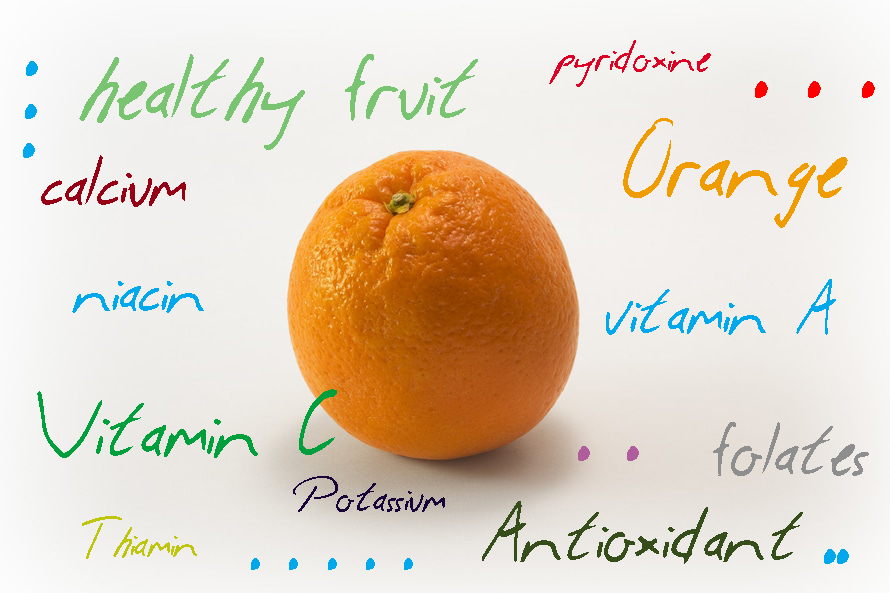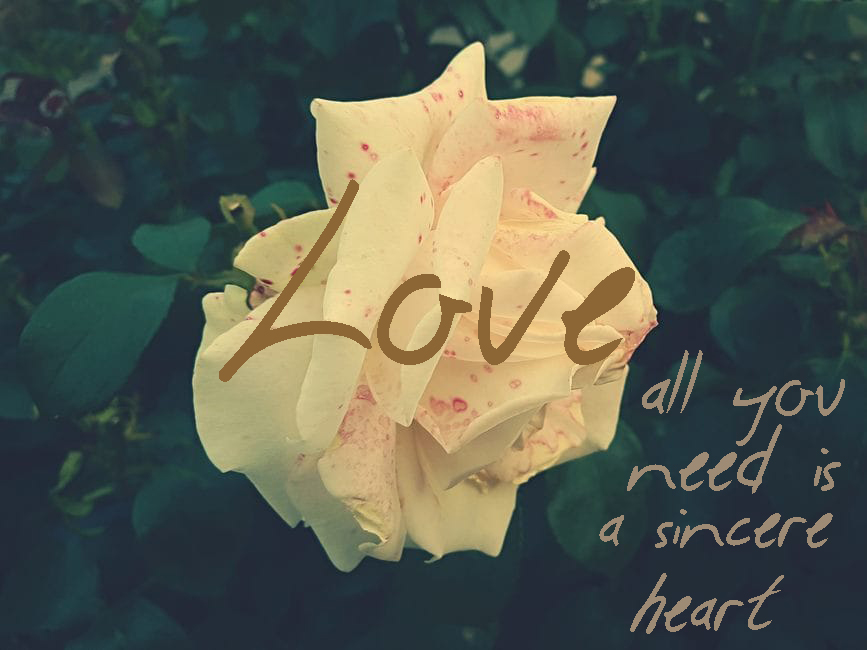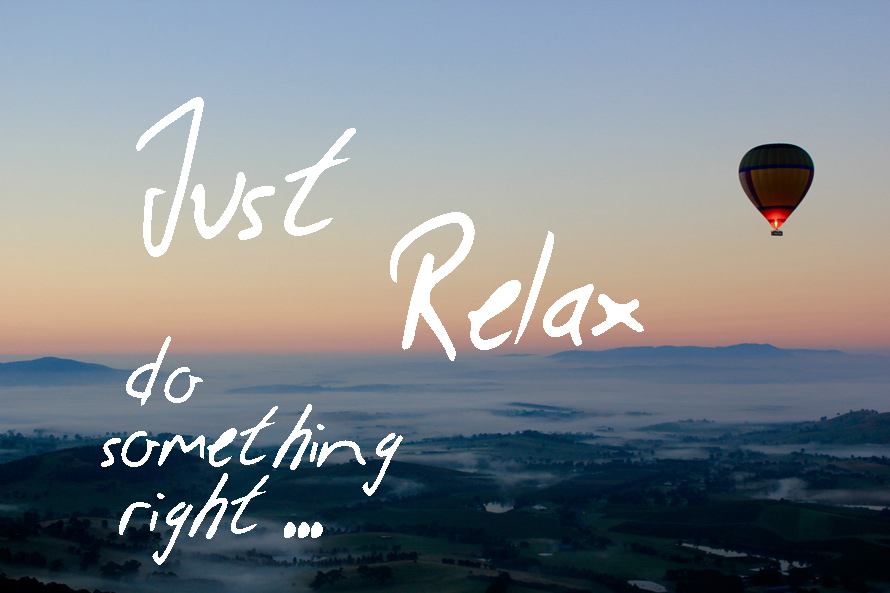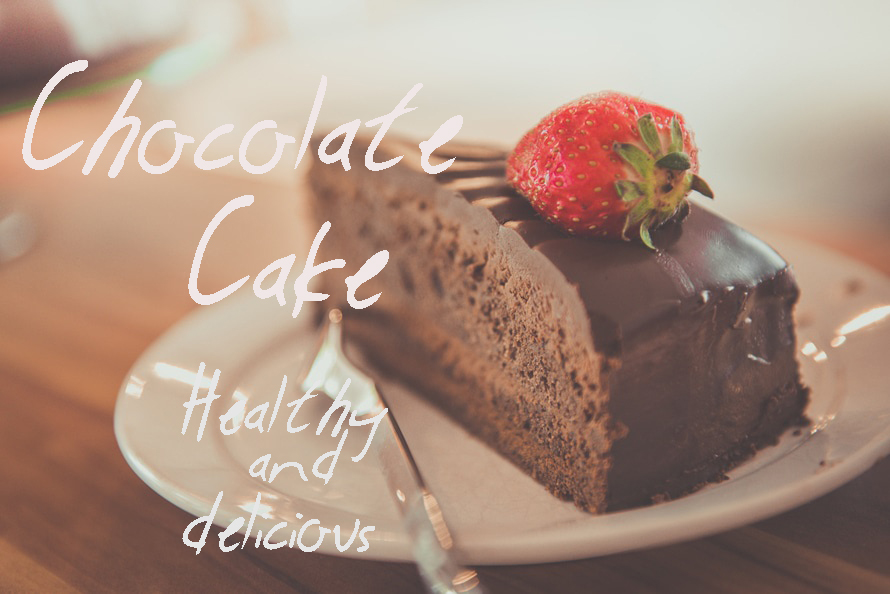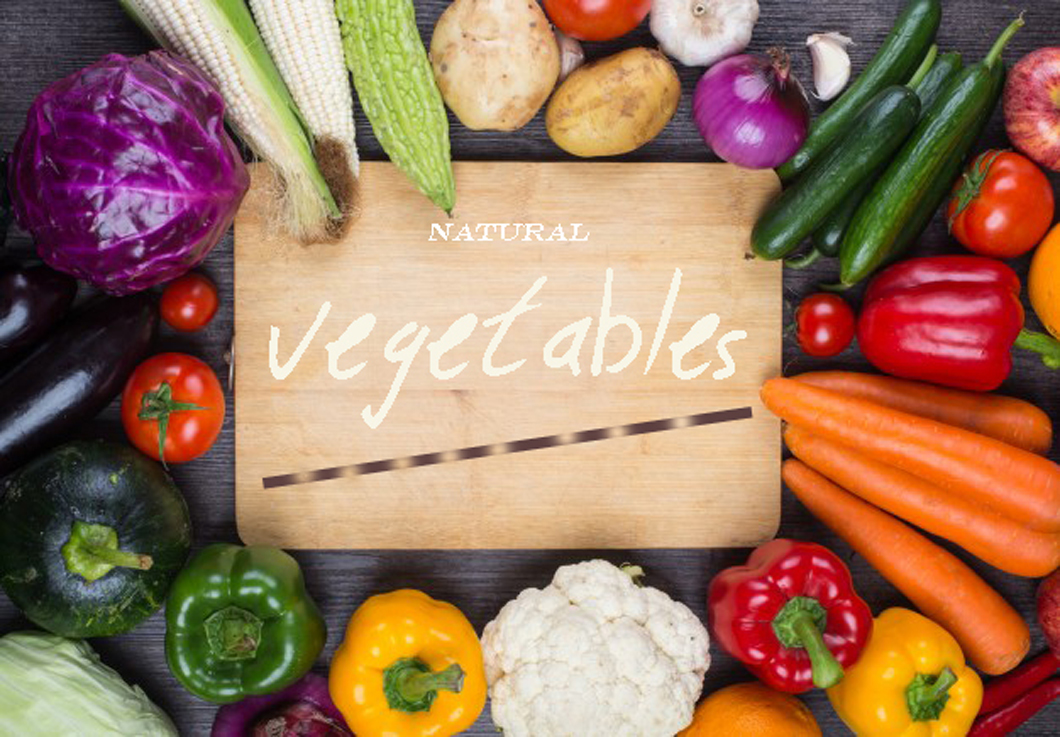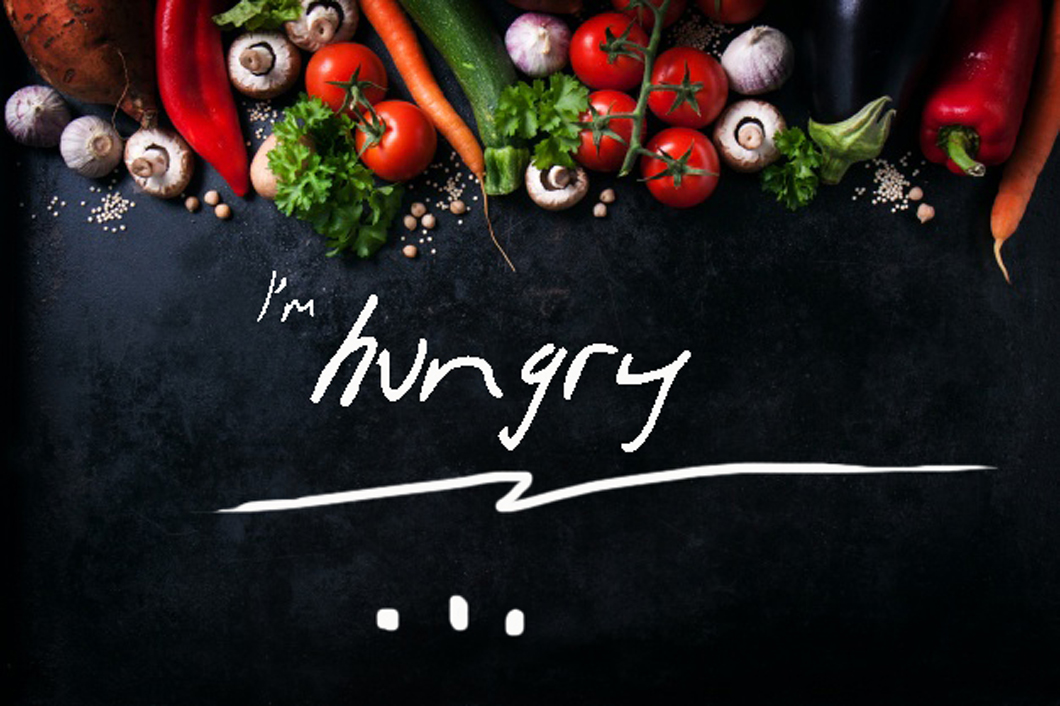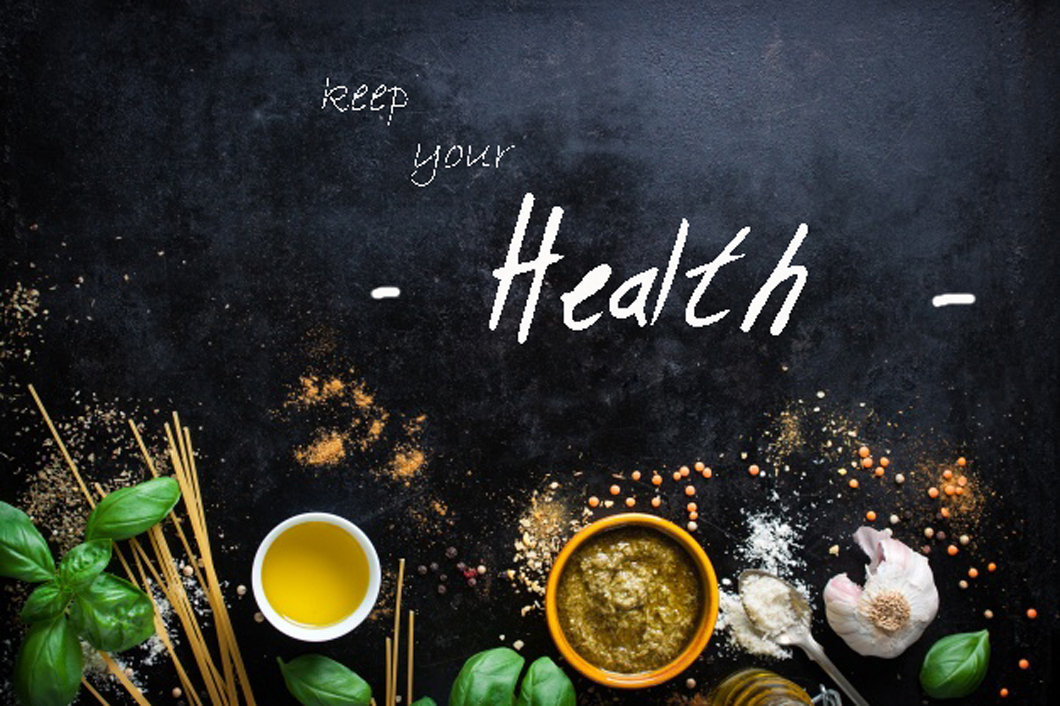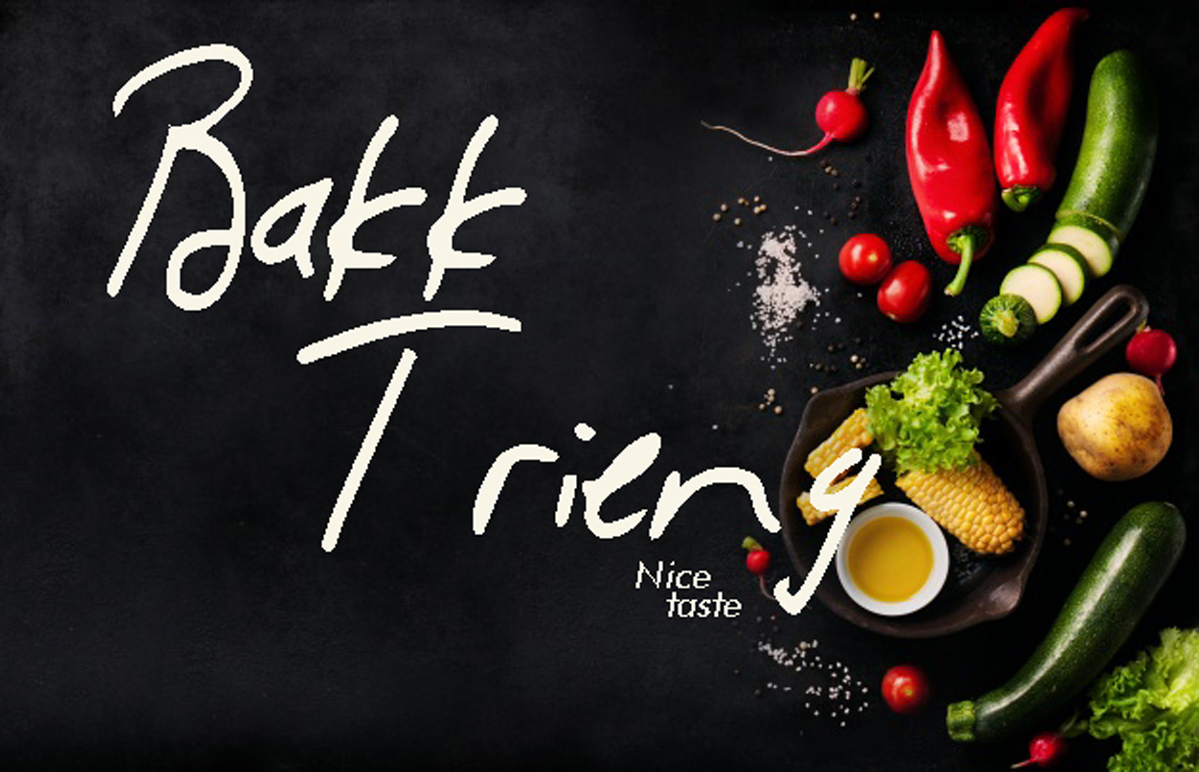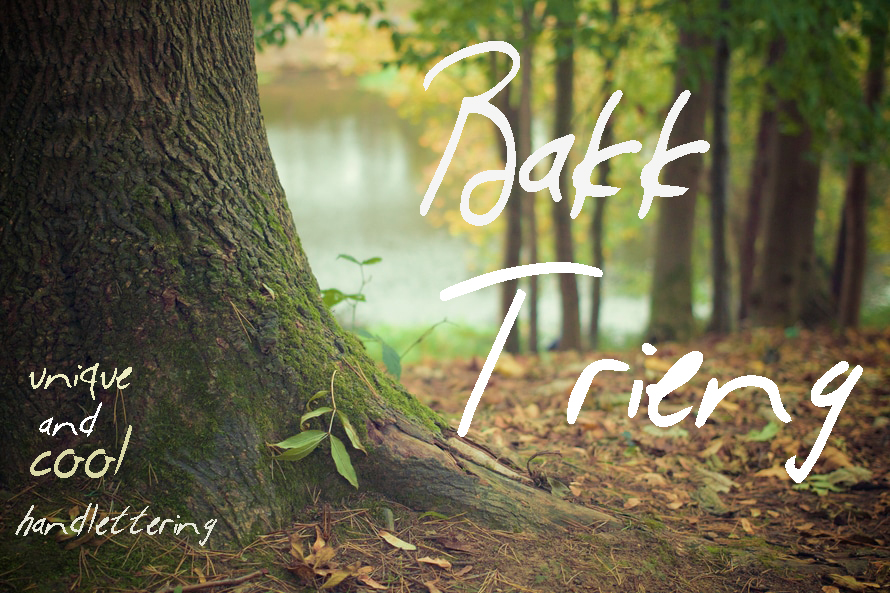
Bakk Trieng is a unique and cool script, suitable for approachable designs and carefree styling. This free form sans serif font is ideal for a wide range of styles and project types.